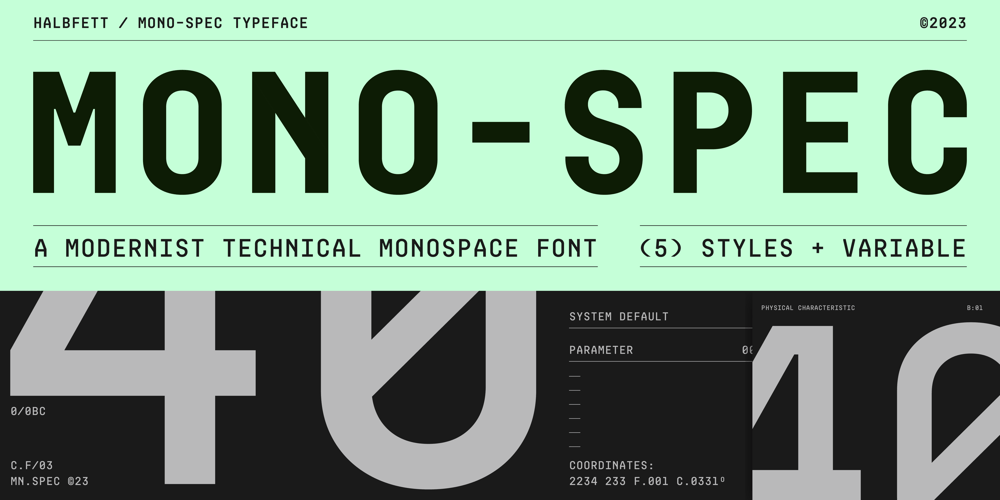
Mono Spec Font Family was designed by Deni Anggara and published by Halbfett. Mono Spec contains 6 styles and family package options. Mono-Spec is a monospaced family of sans-serif type. At least in default settings, all characters across the typeface share a common width. That fixed setting is condensed, and the aesthetic style of Mono-Spec’s letterforms is very industrial. A sister family, called Mono-Spec Stencil, is also available. Its design strays away from the mechanical nature of Mono-Spec, and it channels the spirit of resistance and street culture. Mono-Spec ships in two different formats. Depending on your preference, you can install the typeface as a single Variable Font or use the family’s five static OpenType font files instead. Those weights run from Light through Bold. While the static-format fonts offer a good intermediary-step selection, users who install the Variable Font have vastly greater control over their text’s stroke width. The Mono-Spec Variable Font’s weight axis allows users to differentiate between almost 1,000 possible font weights. That enables you to fine-tune your text’s exact appearance on-screen or in print. Whatever format you choose, the Mono-Spec fonts are equipped with several OpenType features. The most striking of these can be activated via a Stylistic Set. That will replace several letters – like “B”, “E”, “F”, “H”, and “I” with double-width alternates. Those alternates take up as much space as two characters placed next to each other otherwise word. The effect of Mono-Spec’s double-width alternates is striking, and their use strikes a strong chord in any display typography applying them.